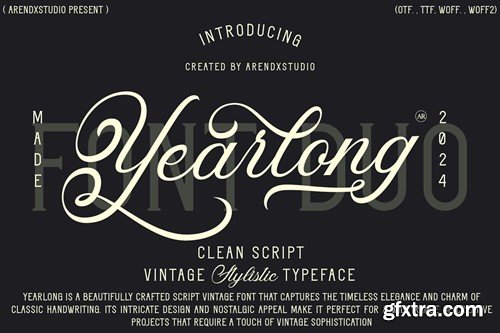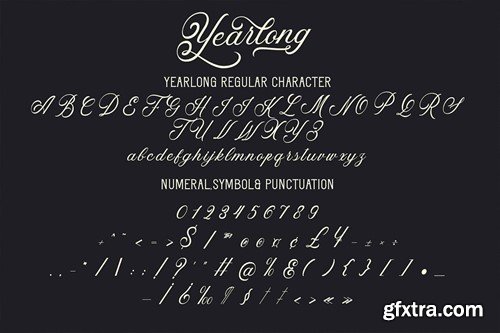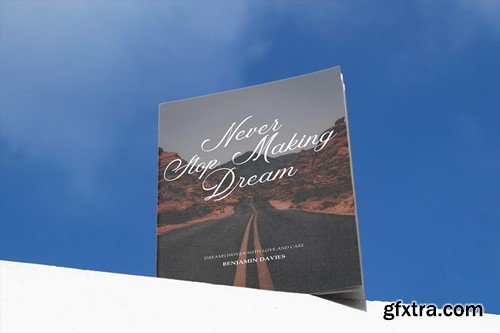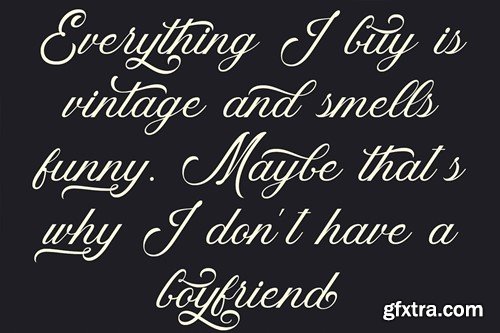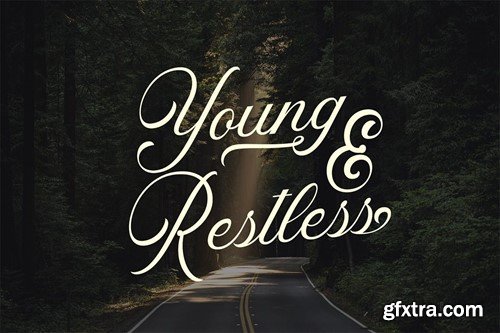
Font Name: Yearlong Type: Script Vintage Font Overview: Yearlong is a beautifully crafted script vintage font that captures the timeless elegance and charm of classic handwriting. Its intricate design and nostalgic appeal make it perfect for a wide range of creative projects that require a touch of vintage sophistication. Vintage Aesthetic: Versatile Applications: Character Set: Additional Features: Yearlong is a script vintage font that brings a sense of timeless elegance and classic charm to any project. Its intricate design and nostalgic appeal make it an excellent choice for a wide range of applications, from wedding invitations to branding. With Yearlong, every design is infused with a sense of history and sophistication, making it truly memorable. What you get Complaint Font : 1.Yearlong .ttf 2.Yearlong .otf 3.Yearlong .woff 4.Yearlong .woff2 Features : Uppercase and lowercase characters Numerals and Punctuation (OpenType Standard) Accents (Supports Multilingual Characters) Stylistic set PUA Encoding You can use this typeface without needing any specialized software.